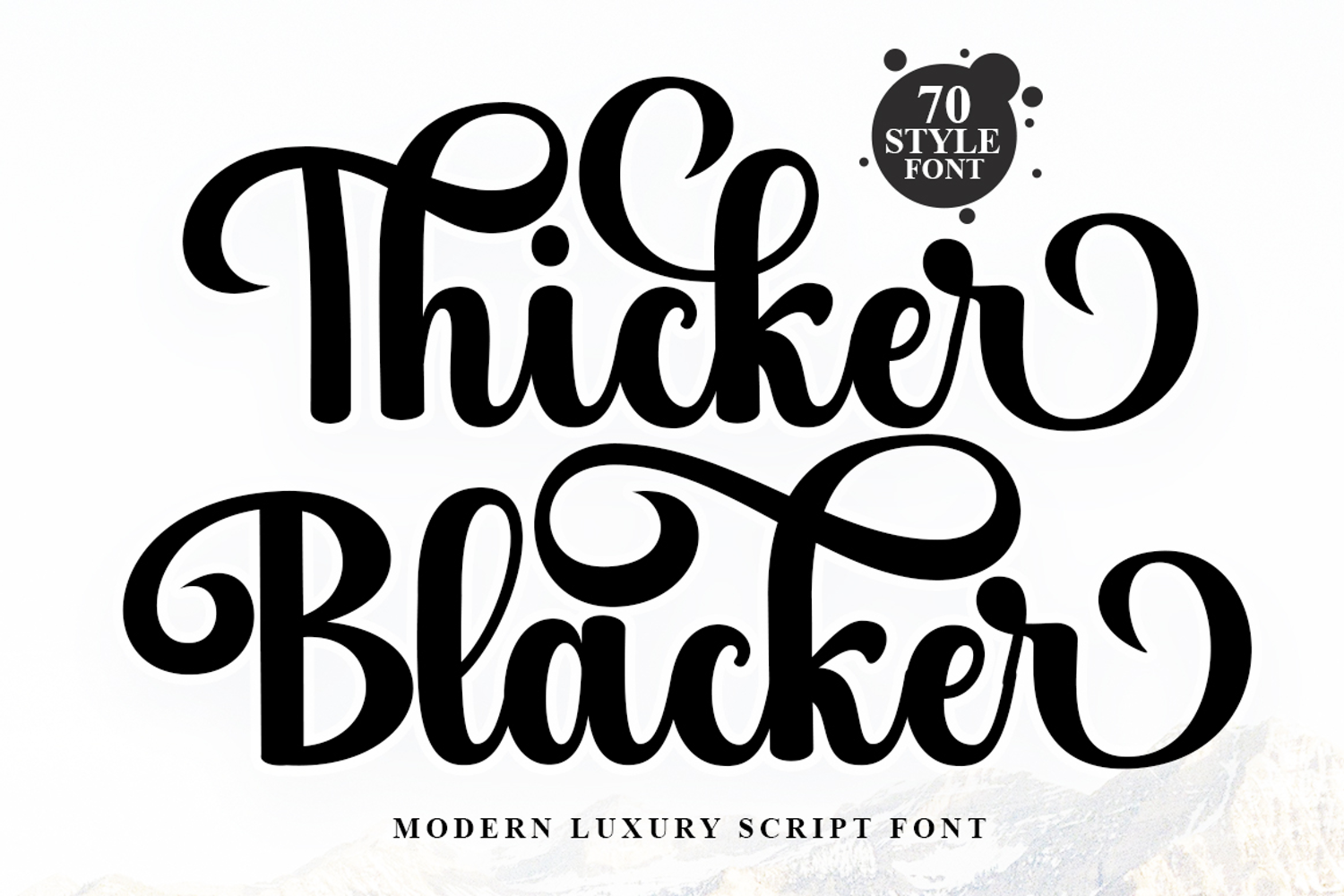
Thicker Blacker - Family Font In 70 Styles
Introducing Thicker Blacker Typeface — a bold, fashion-forward font family with 70 dynamic styles, designed to make a statement and elevate your creative vision.
Thicker Blacker brings together sharp structure, refined curves, and a touch of glamor, fusing timeless elegance with modern versatility. Each style is meticulously crafted to deliver high-impact visuals, complete with sleek letterforms, smooth ligatures, and eye-catching alternates that offer endless design possibilities.
From luxury branding and fashion campaigns to editorial spreads, packaging, menus, and invitations — Thicker Blacker adds instant polish and upscale sophistication to any project.
• 70 Unique Styles – including Regular, Italic, Bold, Outline, Wrap, Frosted, Smart Corner & more
• Complete Character Set – Uppercase & Lowercase
• Alternates & Ligatures – for custom, creative typography